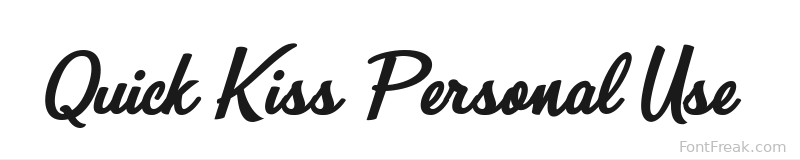
Quick Kiss Personal Use
About Quick Kiss Personal Use
Quick Kiss Personal Use font by Billy Argel Fonts is a charming handwritten script that exudes warmth and personality. This font features elegant, flowing strokes that create a sense of movement, making it perfect for designs that require a personal touch. The stroke weight varies, providing a dynamic contrast that enhances its visual appeal, while the playful, slightly exaggerated curves add a whimsical flair. The spacing is well-balanced, ensuring readability without sacrificing the font's artistic essence.
This font is ideally suited for a variety of creative projects. It's an excellent choice for wedding invitations, where its romantic style can beautifully convey heartfelt sentiments. Additionally, it works wonderfully for greeting cards and personal stationery, allowing users to add a unique signature to their correspondence. Restaurant menus can also benefit from the Quick Kiss font, giving a welcoming and friendly vibe that invites patrons to indulge in the culinary experience. Moreover, social media graphics and blog headers can leverage this font's distinctive character to capture attention and enhance brand identity.
What sets the Quick Kiss Personal Use font apart is its ability to blend elegance with playfulness, making it a versatile choice for anyone seeking to make a lasting impression. With its unique charm and artistic flair, the Quick Kiss Personal Use font free download is a valuable addition to any designer's toolkit, ready to elevate creative projects with its distinctive style.